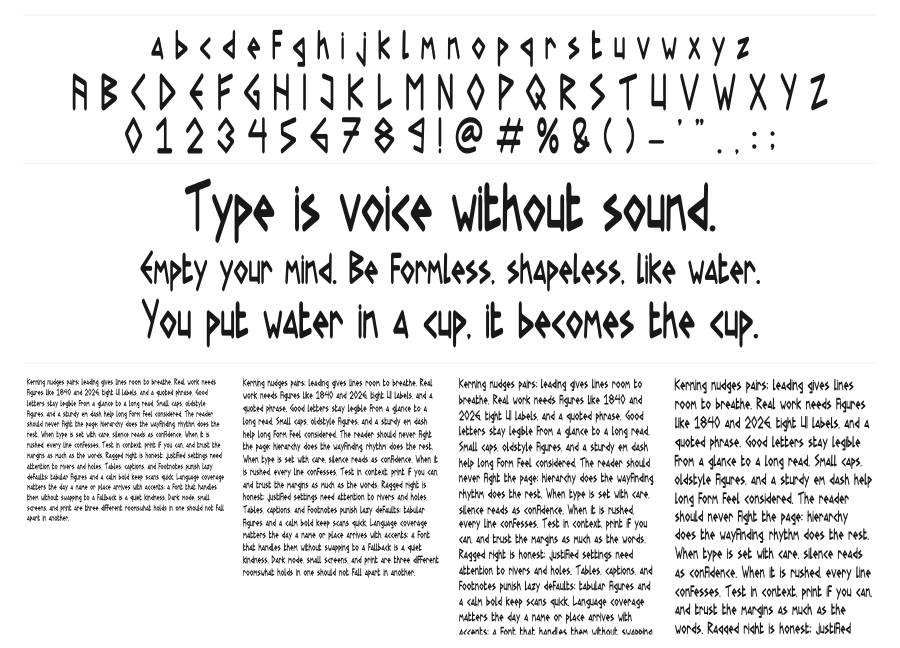
Roronoa
Roronoa is a bold, irregular display sans with heavy strokes and sharp angular terminals that channel manga and fantasy aesthetics. The idiosyncratic cuts and notches in each character give it a hand-crafted, slightly tribal quality that feels both raw and deliberate. Strong at large sizes for game titles, posters, and entertainment branding.